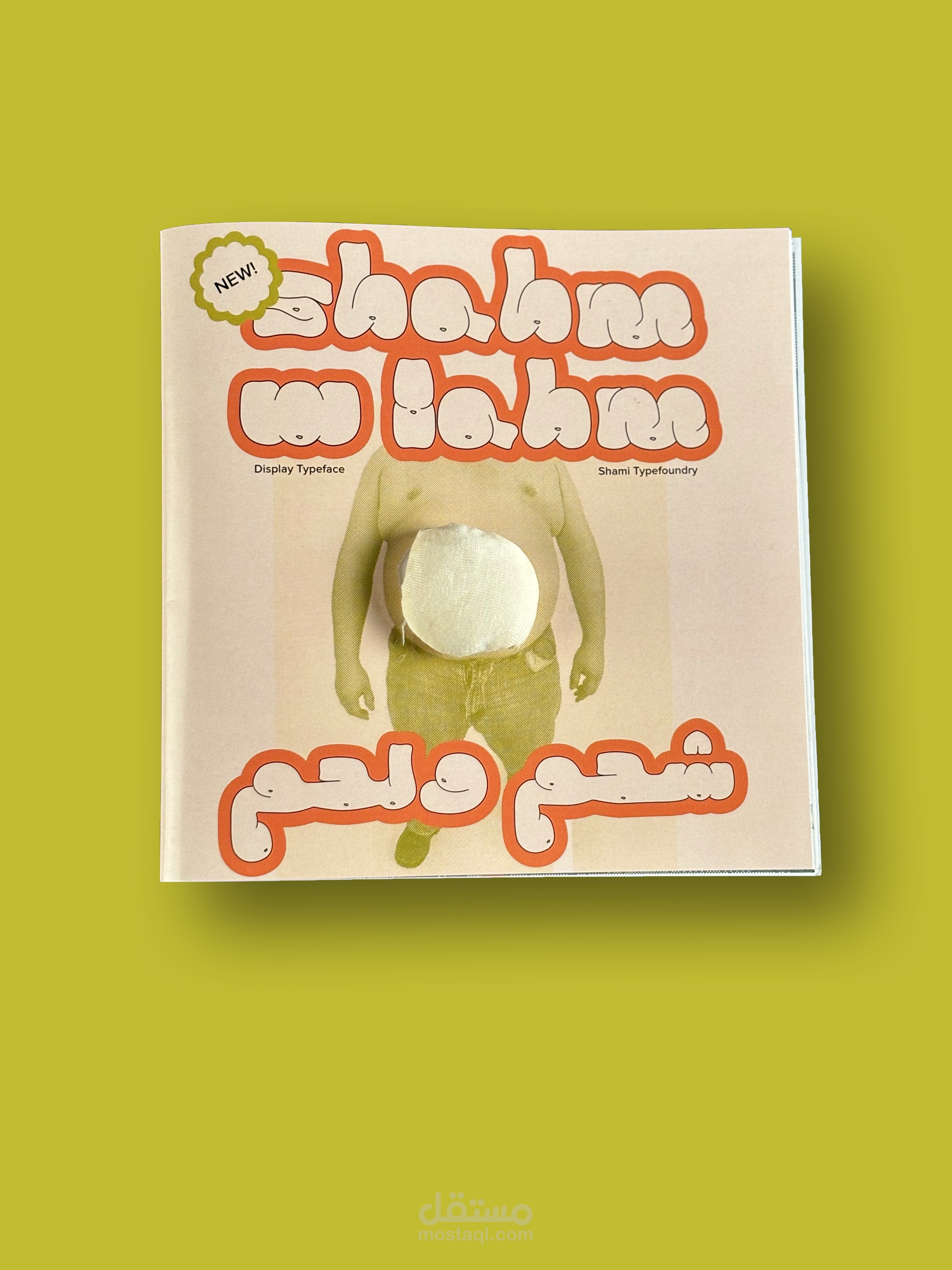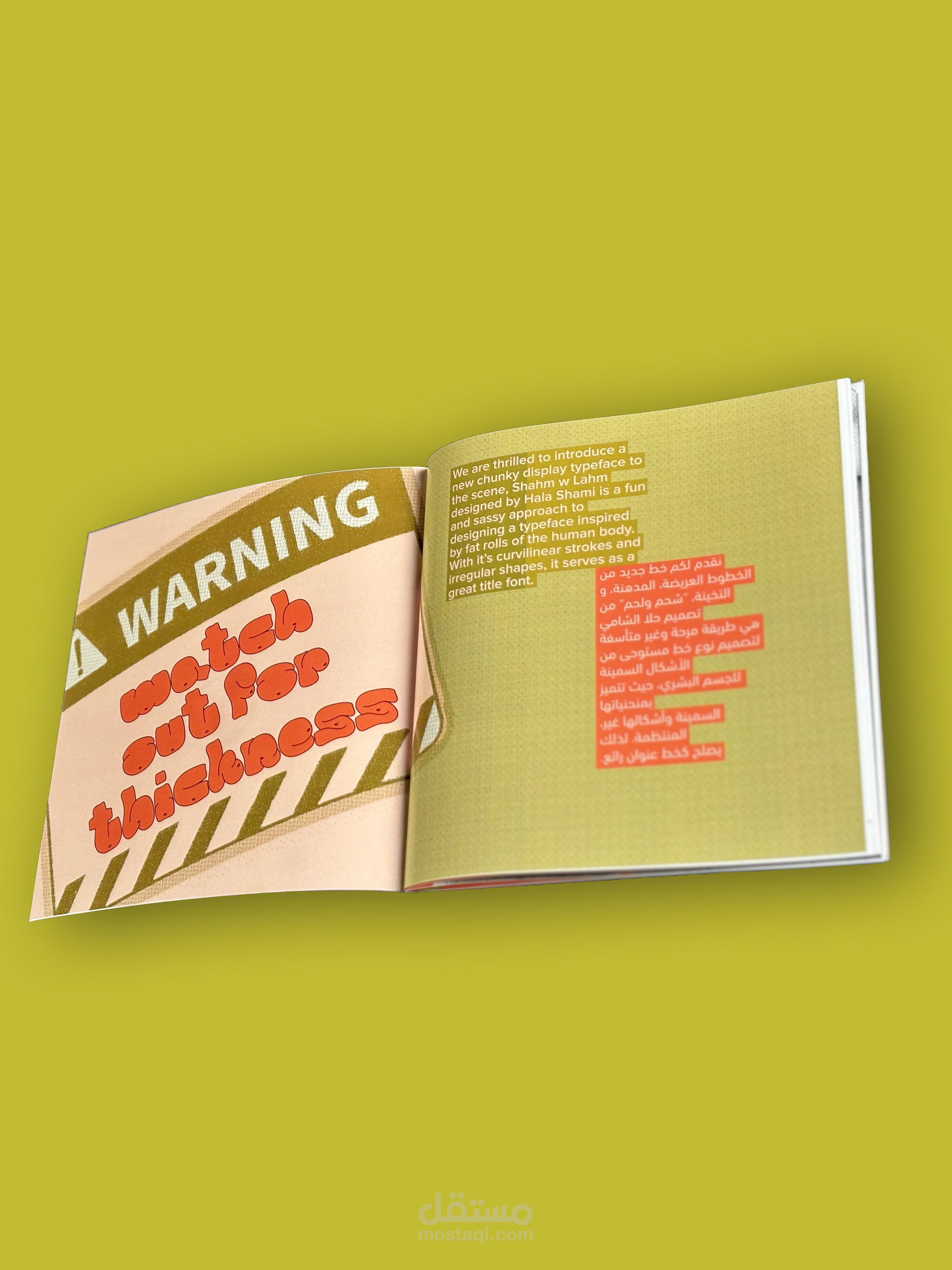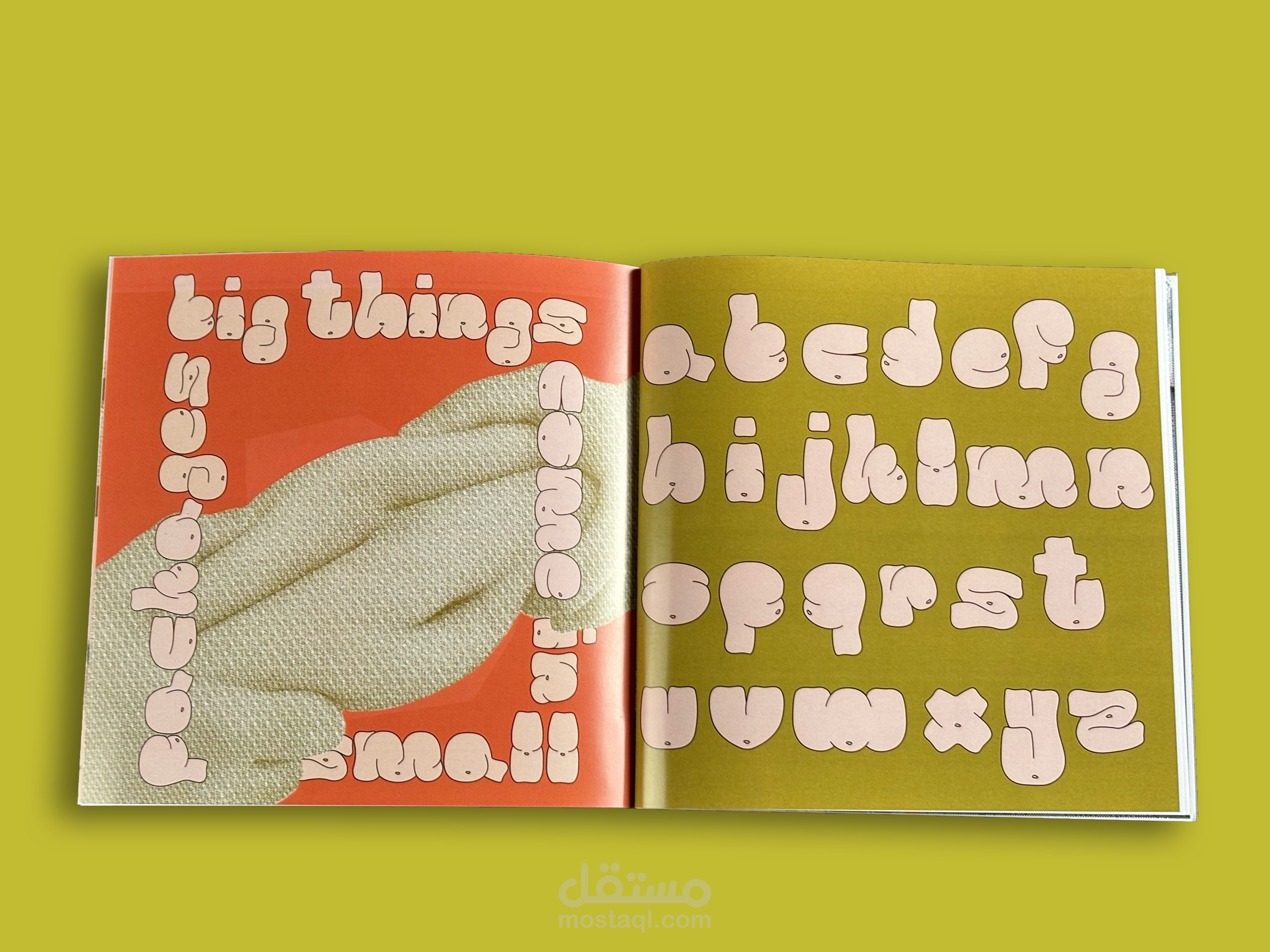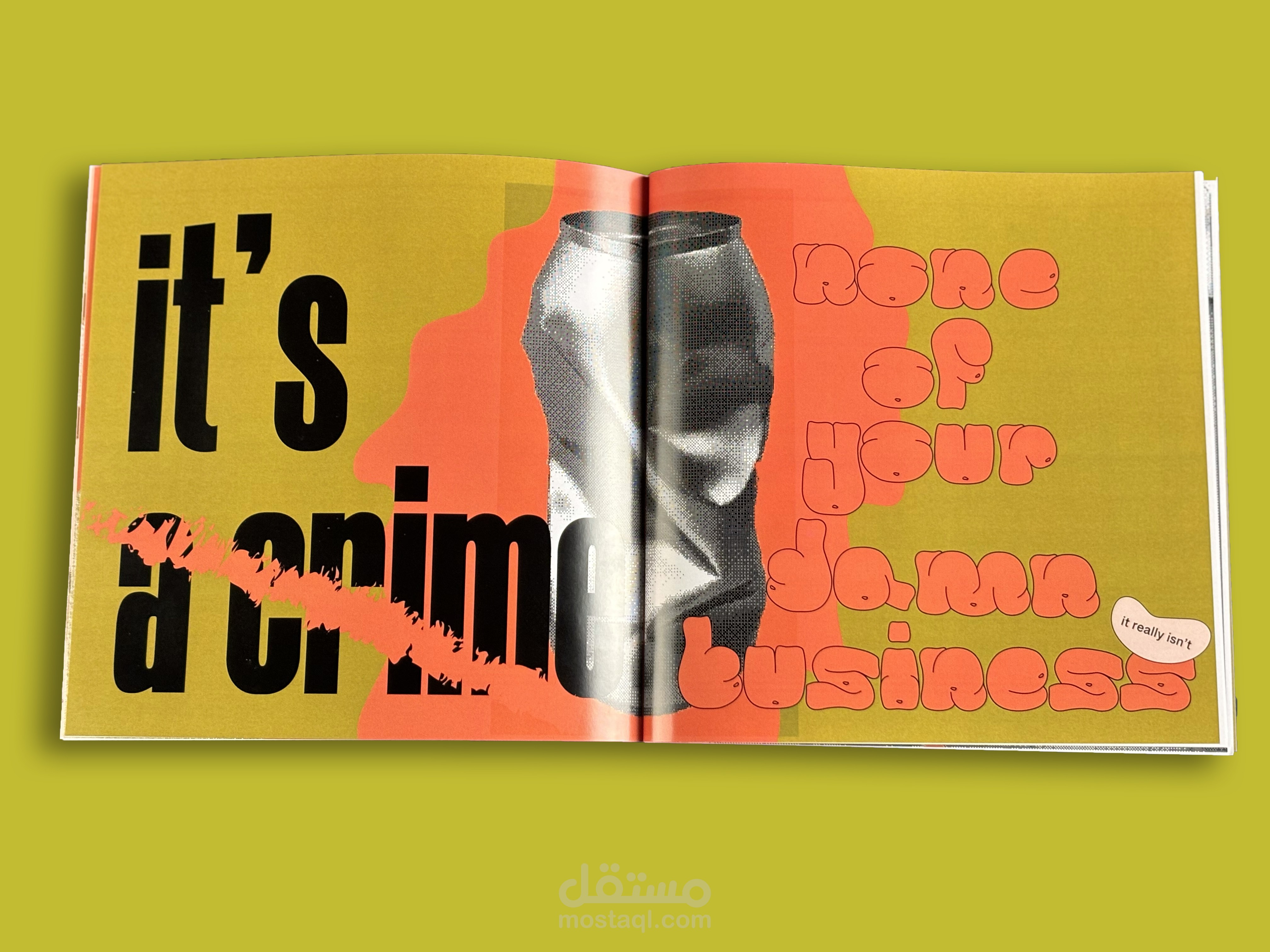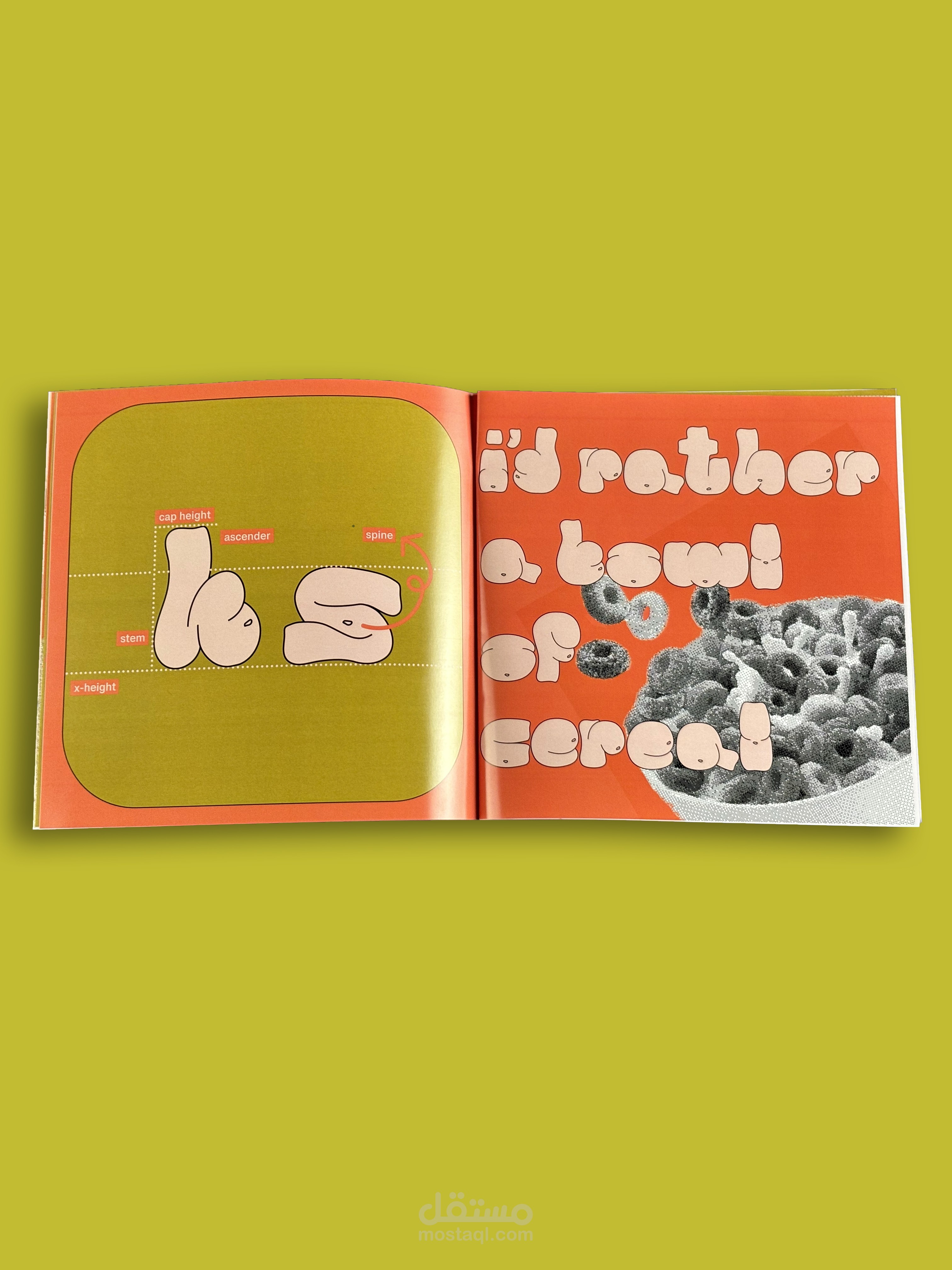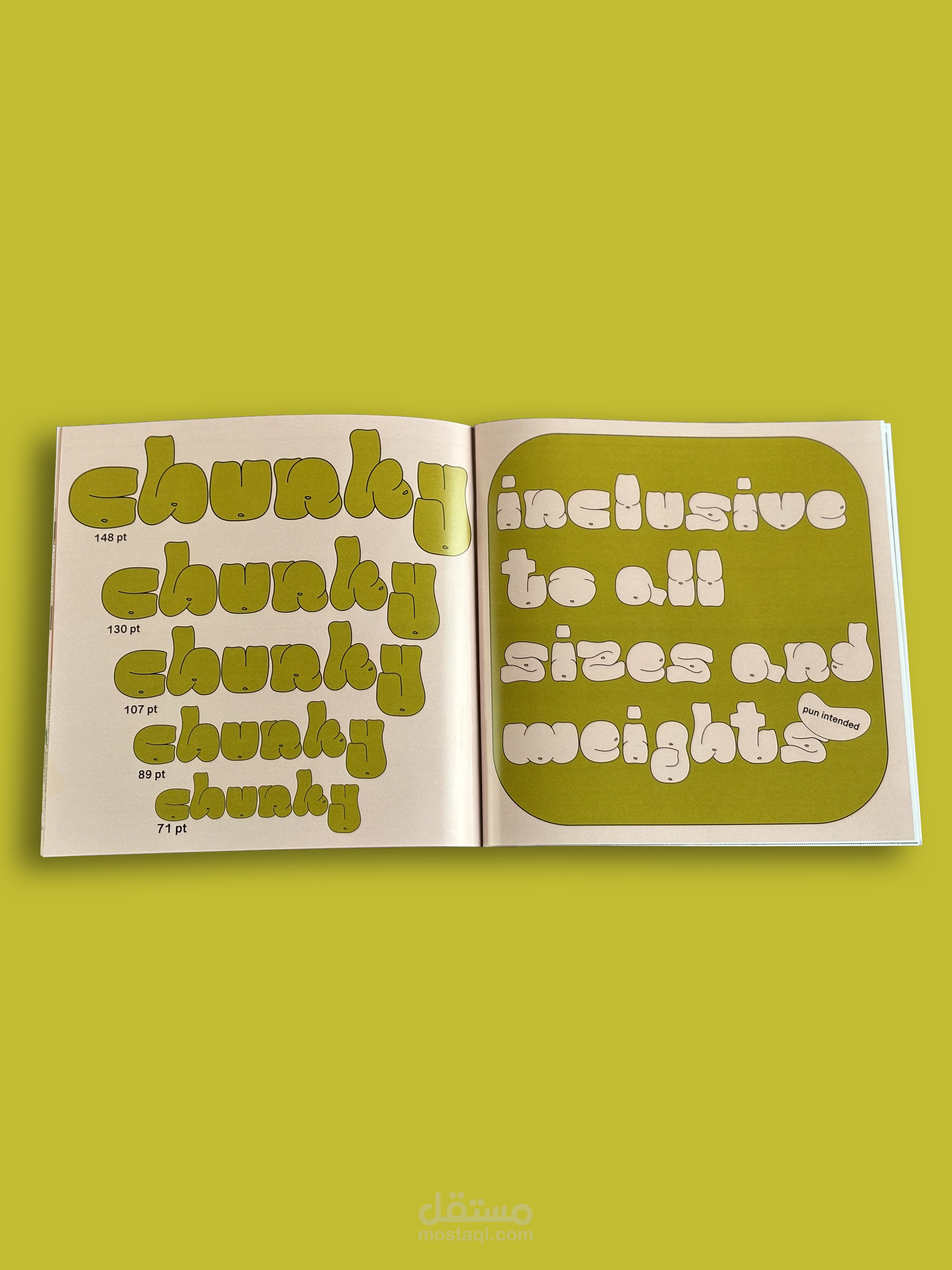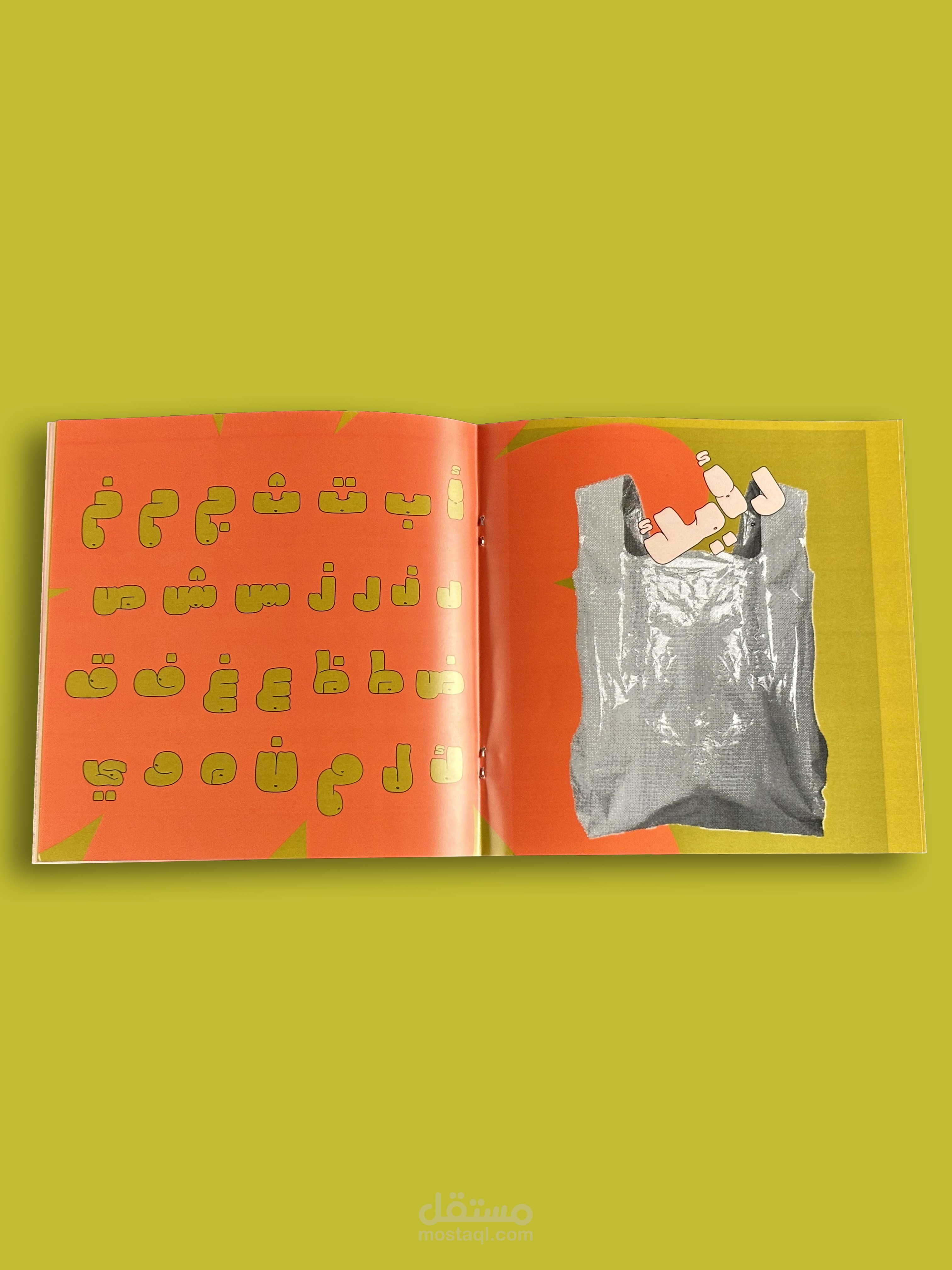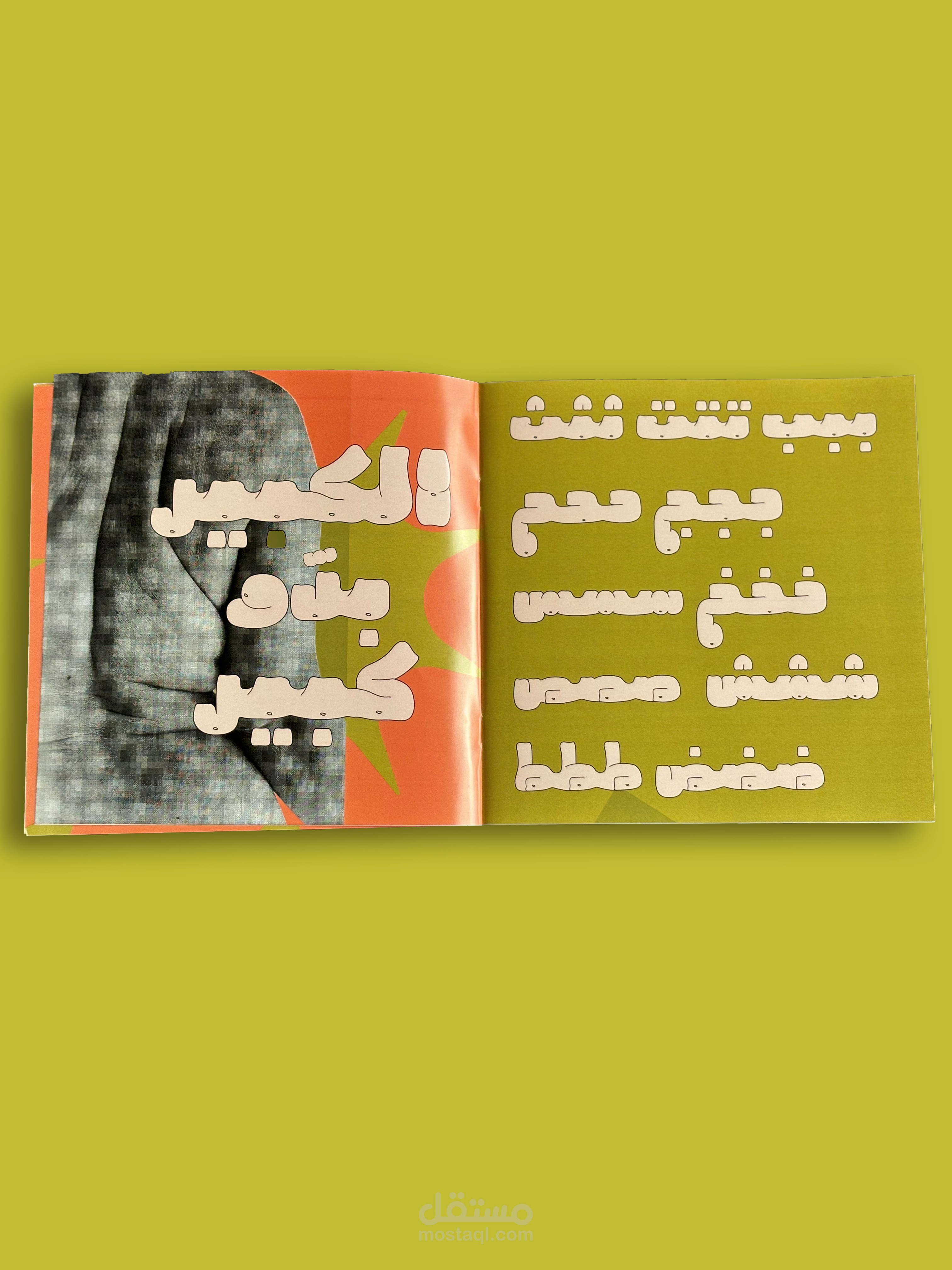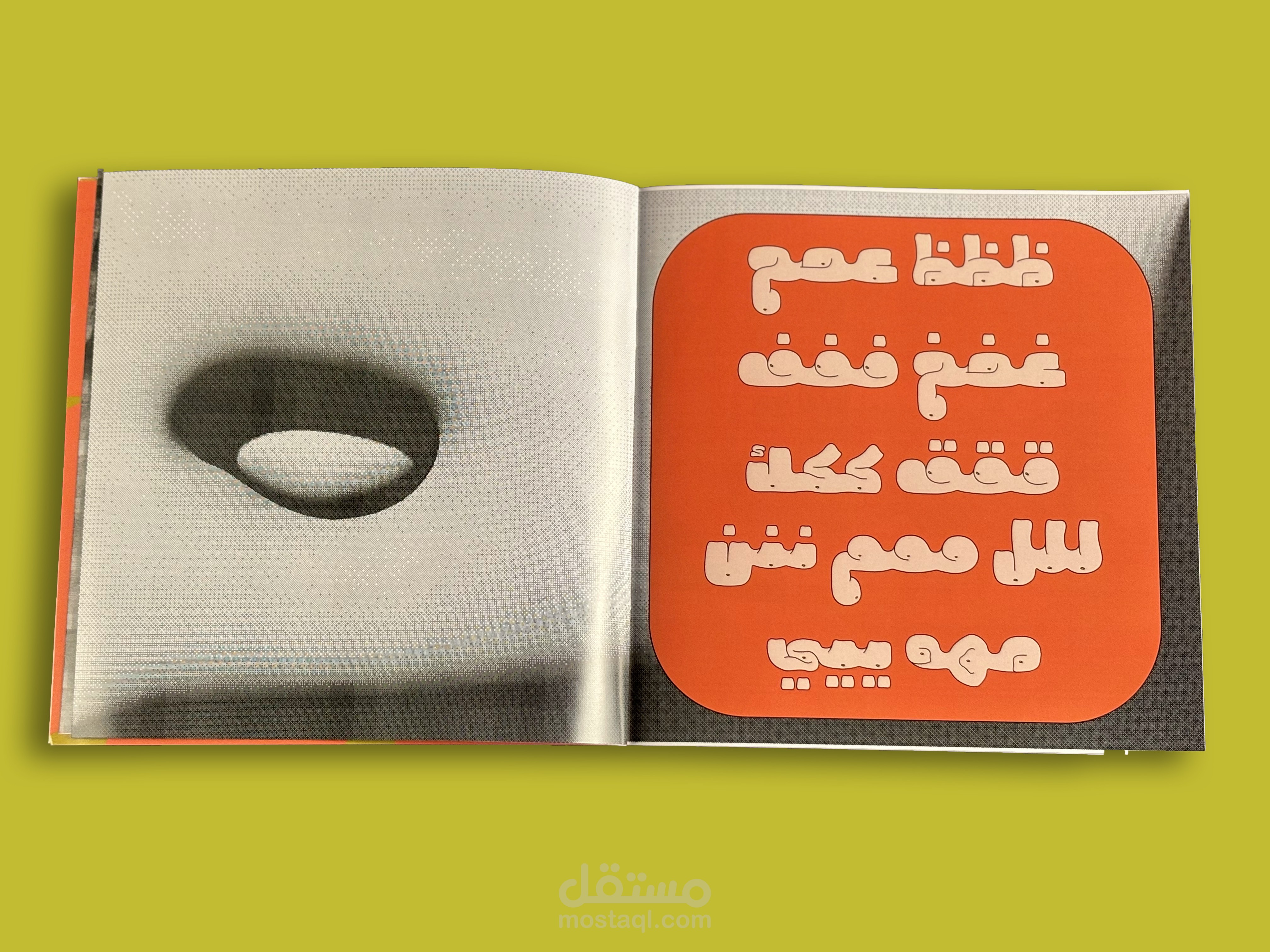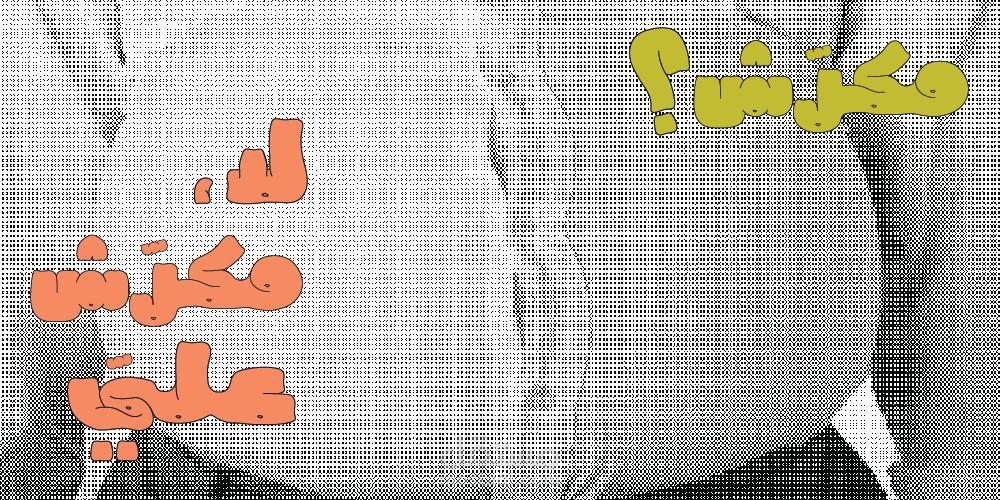
Shahm w Lahm is a bilingual display typeface inspired by the fat rolls of the human body created by me from scratch. After completing my typeface, I decided to create a specimen for it to sell it as an official font eventually. this is the final
result. For context, the theme of my specimen is body inclusivity and living a judgment-free life regardless of size and weight; hence the sassy and in-you-face copywriting.
"شحم ولحم" هو خط عرض ثنائي اللغة مستوحى من لفائف الدهون في جسم الإنسان التي قمت بإنشائها من الصفر. بعد الانتهاء من تصميم الخط ، قررت إنشاء نموذج له لبيعه كخط رسمي في النهاية. هذه هي النتيجة النهائية. إن موضوع عيّنتي هو شمولية الجسد والعيش حياة خالية من الأحكام بغض النظر عن الحجم والوزن.